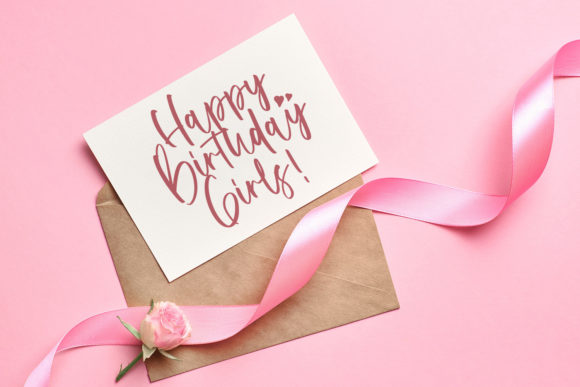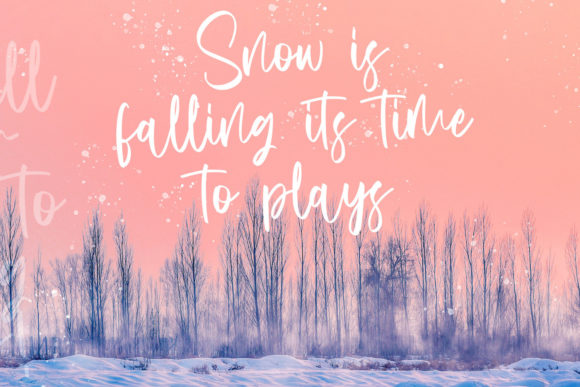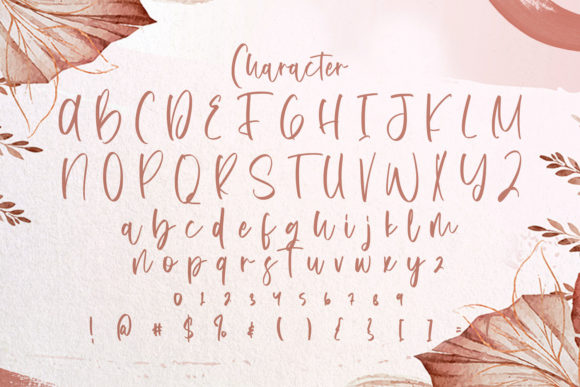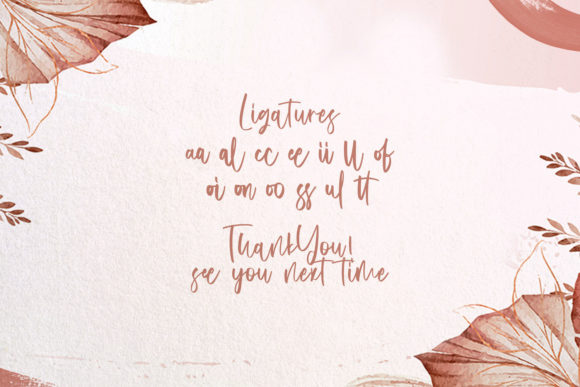
About Dutalisa Joily Font
Dutalisa Joily is a breathtakingly beautiful and flowing handwritten font that will captivate your audience with its unique charm and stunning impact. With its elegant and luxurious design, this font is the perfect choice for adding a touch of sophistication to your design projects.
The smooth and graceful strokes of Dutalisa Joily create a sense of fluidity and elegance. Each letter is carefully crafted, resulting in a font that exudes a sense of craftsmanship and attention to detail. The flowing nature of the characters gives your designs a sense of movement and vitality, making them visually engaging and captivating.
With its luxurious spark, Dutalisa Joily is ideal for a wide range of design projects. Whether you’re creating wedding invitations, branding materials, packaging, or any other project that requires a touch of opulence, this font will elevate your designs to new heights. Its versatility allows it to seamlessly blend with different design elements, making it suitable for logos, headlines, posters, and more.
Dutalisa Joily’s unique feel sets it apart from other fonts, making it a standout choice for those who want to make a lasting impression. It evokes a sense of sophistication and refinement, making it well-suited for upscale and high-end designs. Whether used in print or digital media, Dutalisa Joily will leave a lasting impact on your audience.
This font also offers a wide range of potential applications, allowing you to explore various creative possibilities. Its stunning impact and luxurious aesthetic make it a versatile and reliable choice for any design project that requires a touch of elegance.
In conclusion, Dutalisa Joily is a beautiful and flowing handwritten font that combines elegance, luxury, and a unique charm. Its stunning impact and unique feel will add a touch of sophistication to your design projects, making them visually captivating and memorable. Whether used for wedding invitations, branding, or other high-end designs, Dutalisa Joily will elevate your creations and leave a lasting impression on your audience.